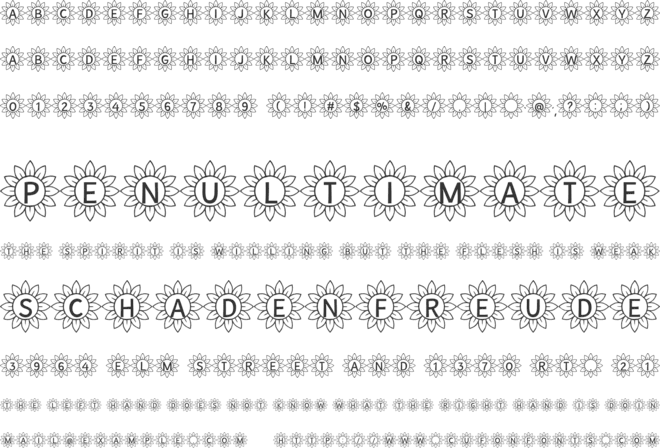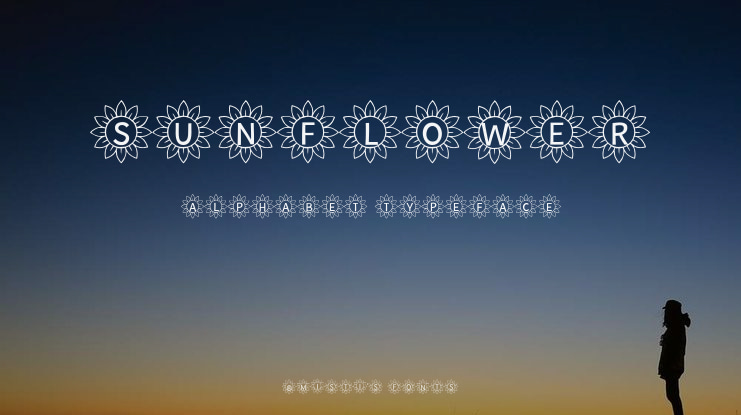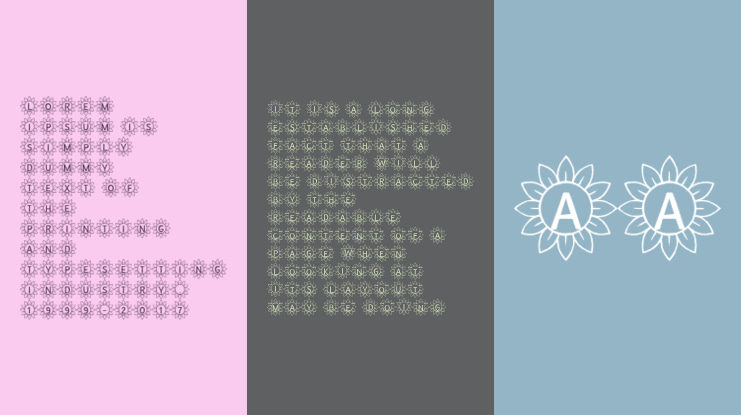
Sunflower Alphabet Font Family
Unveiling the Sunflower Alphabet – an effervescent display font highlighted by robust numerals and alphabets encased within exuberant sunflower silhouettes. With its unique construct, it comes in a Regular and Solid version, thereby offering a versatile canvas to the creators. It holds the magic to infuse a whiff of joy into children’s crafts, while simultaneously amplifying the aesthetic value of posters and other vibrant designs. Revel in the sunny charm of this font! 🌻